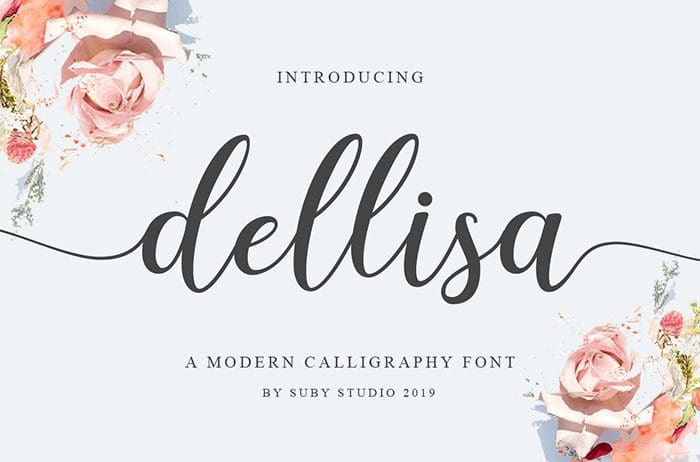
Free Dellisa Script Font
Dellisa Script Font
Free Dellisa Script Font is a beautiful and modern calligraphy. It’s perfect for any design project such as quotes, wedding invitation, clothing, and apparel. This font is available only for personal use. Created this font by Teguh Subiyantoro. You can also search more freeĀ Script Fonts. Thanks!